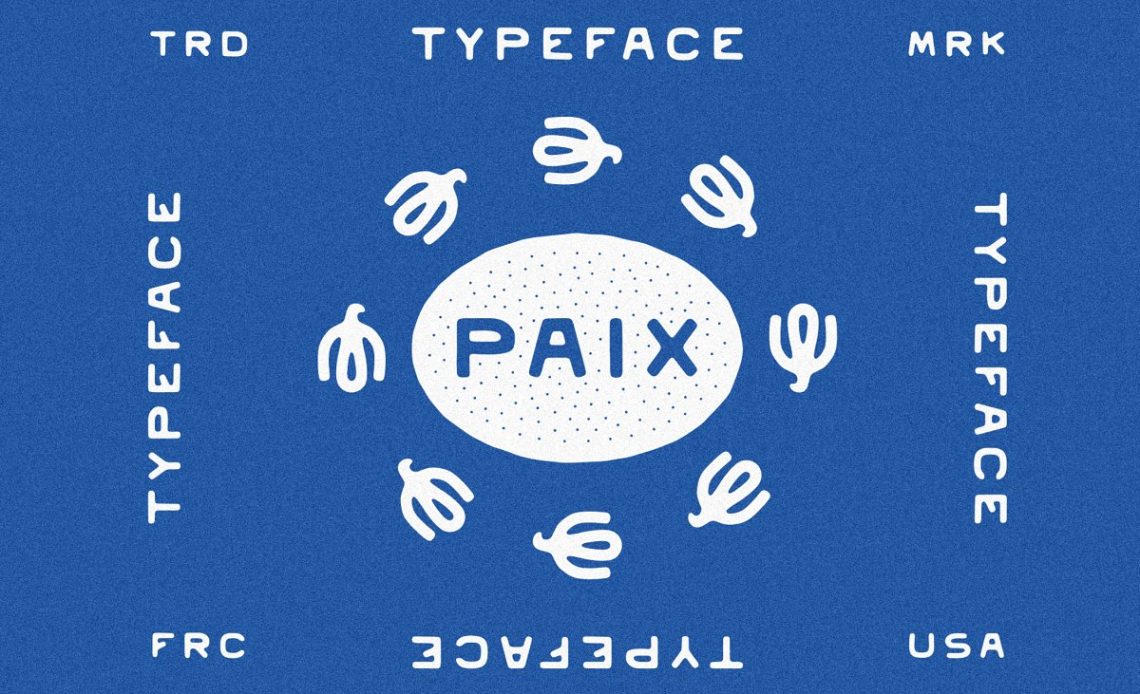
Introducing Paix Typeface, the ultimate font for creating stunning event posters! This sans-serif font is the brainchild of renowned designer James Coffman, who has skillfully crafted it to cater to your event poster needs.
With Paix Typeface, you get a fully functional all-caps font that includes numbers, punctuation, and additional characters to cater to multiple languages. This means that you can use the font to create posters for events all around the world!
But that's not all. Paix Typeface is designed to elevate your poster designs and help you stand out from the competition. The font's bold and captivating design will grab your audience's attention and leave a lasting impression.
Whether you're promoting a music festival, a charity event, or a product launch, Paix Typeface is the perfect choice for creating eye-catching and impactful posters.
What's more, Paix Typeface is incredibly versatile and can be used for a variety of other projects too. From logos and packaging designs to website headers and social media graphics, the possibilities are endless!